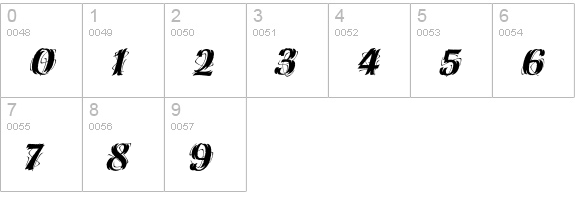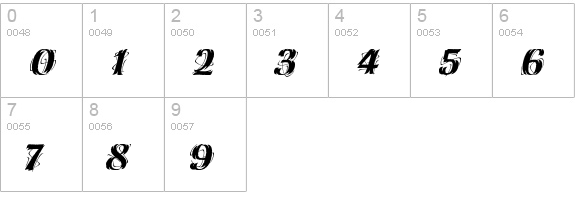
Hazel Std Font Details
Hazel Std font is a stunningly elegant typeface that effortlessly combines classic beauty with a modern twist. Its graceful curves and sophisticated letterforms make it perfect for a wide range of design projects, from elegant invitations to stylish branding. This versatile font is available in a variety of weights, making it easy to find the perfect balance for any design. Whether you're looking for a bold statement or a delicate touch, Hazel Std has you covered. Its clean lines and smooth curves ensure legibility at any size, making it ideal for both print and digital applications. But what sets Hazel Std apart is not just its stunning design, but the fact that it is completely free. That's right, this exquisite font can be downloaded and used without any cost. It's a rare gem in the world of typography, where quality often comes at a hefty price. To get your hands on this remarkable font, simply head over to FontsMarket.com. There, you'll find a vast collection of fonts, including Hazel Std, all available for free download. FontsMarket.com is a trusted source for high-quality fonts, ensuring that you can enjoy the beauty of Hazel Std without any hassle. So whether you're a professional designer or a casual enthusiast, Hazel Std font is the perfect choice for adding a touch of elegance and sophistication to your projects. Don't miss out on the opportunity to enhance your designs with this exquisite typeface – download Hazel Std for free at FontsMarket.com today.